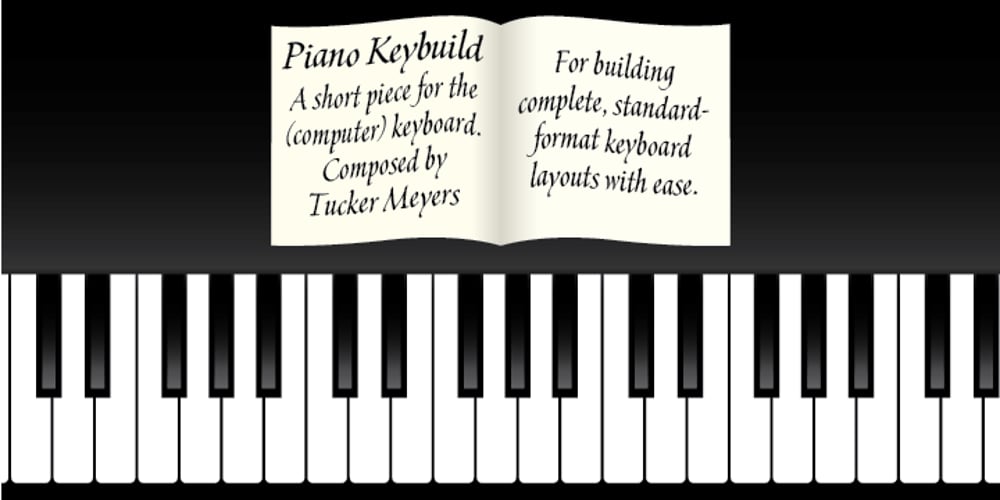
Piano Keybuild Font Family was designed by Tucker Meyers and published by Type Minds. Piano Keybuild contains 1 styles and family package options. Piano Keybuild is a small font designed for creating piano keyboard layouts. It was inspired by my Yamaha CLP-840, a wonderful digital piano. The face consists entirely of keyboard keys that can be combined to form realistic keyboards. These keys come in four styles: basic outlined keys, filler keys (for adding a second color inside the outlines), keys with note names, and pre-made sets of keys. Keys of a given kind will kern with one another, but only in the order that they would naturally occur on a keyboard. (This makes it easier to spot incorrect key sequences.) It also includes digits 0 through 9 inspired by numerals used in traditional music notation. The user guide (PDF under Gallery tab) demonstrates the locations of all the glyphs as well as how to use them together effectively.